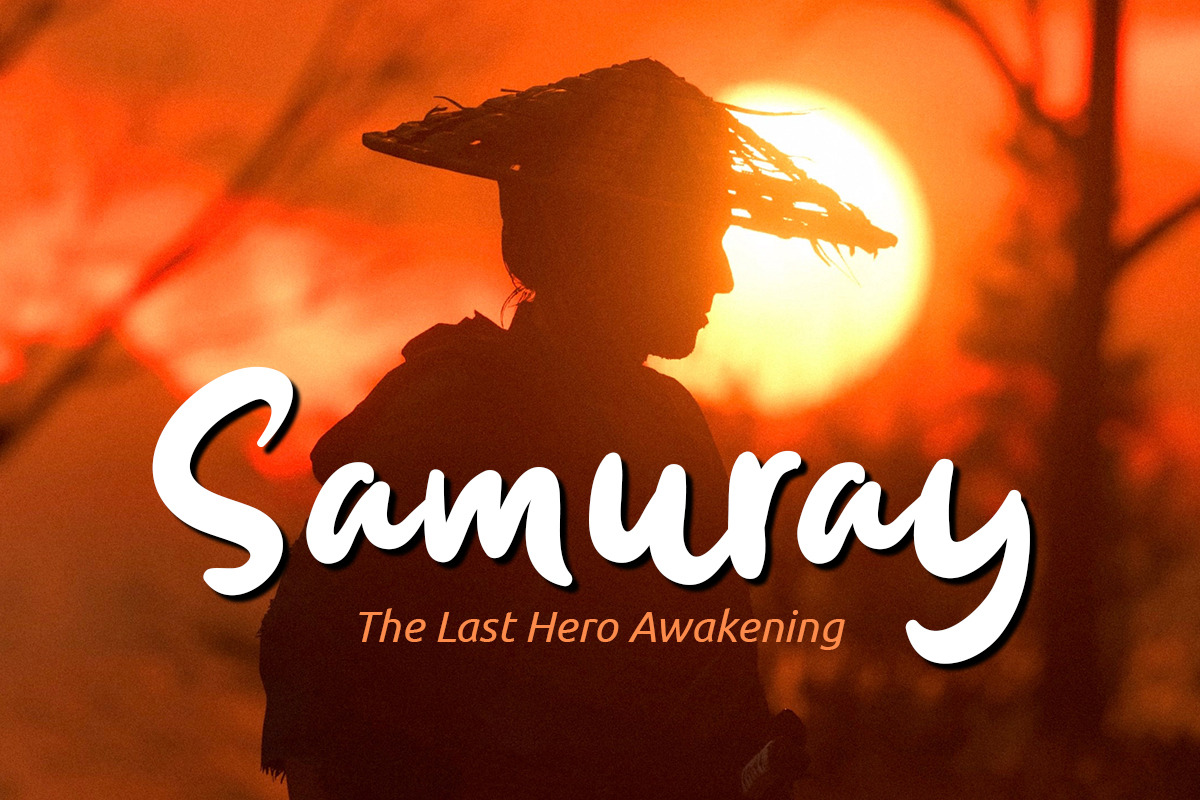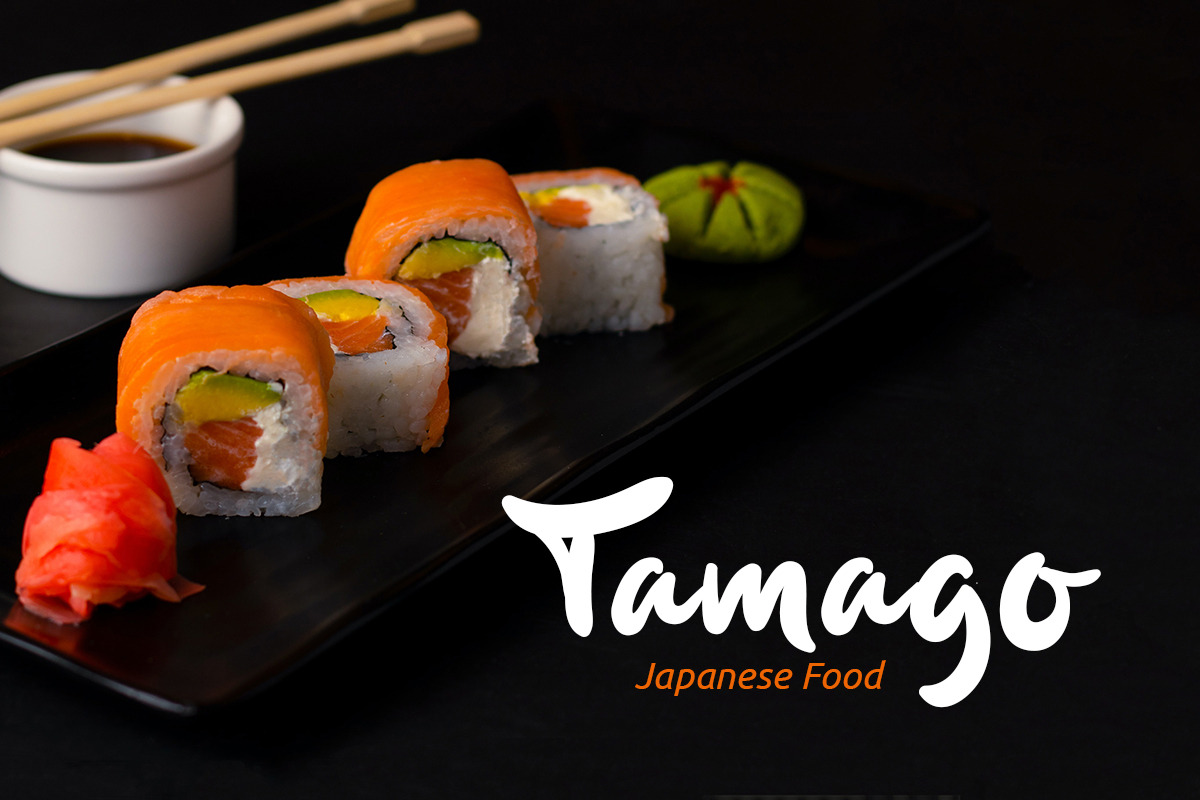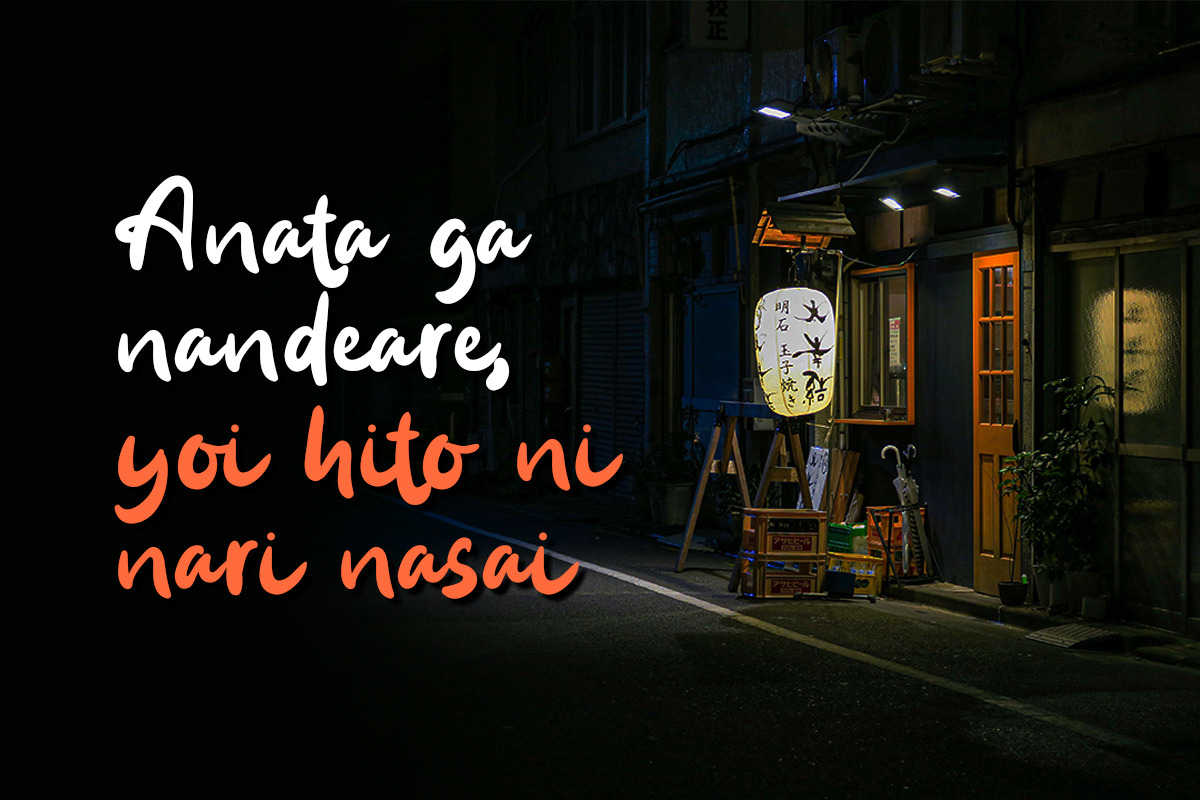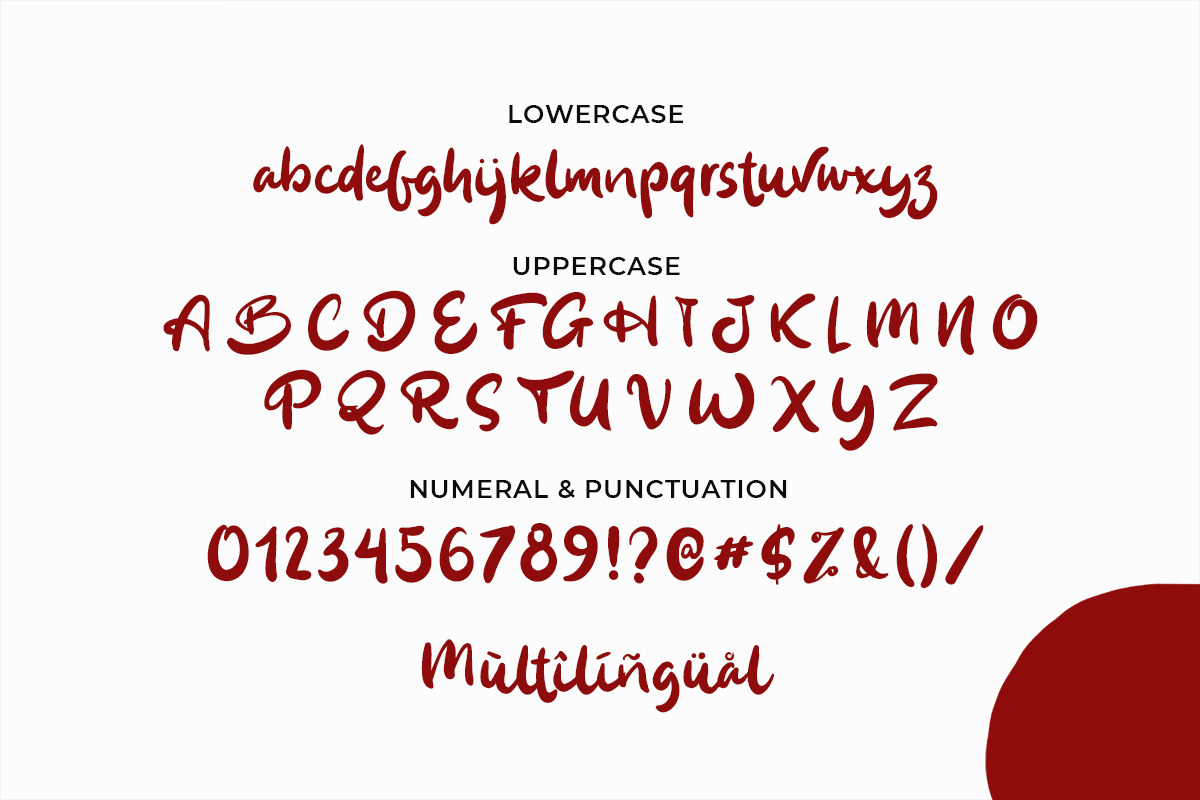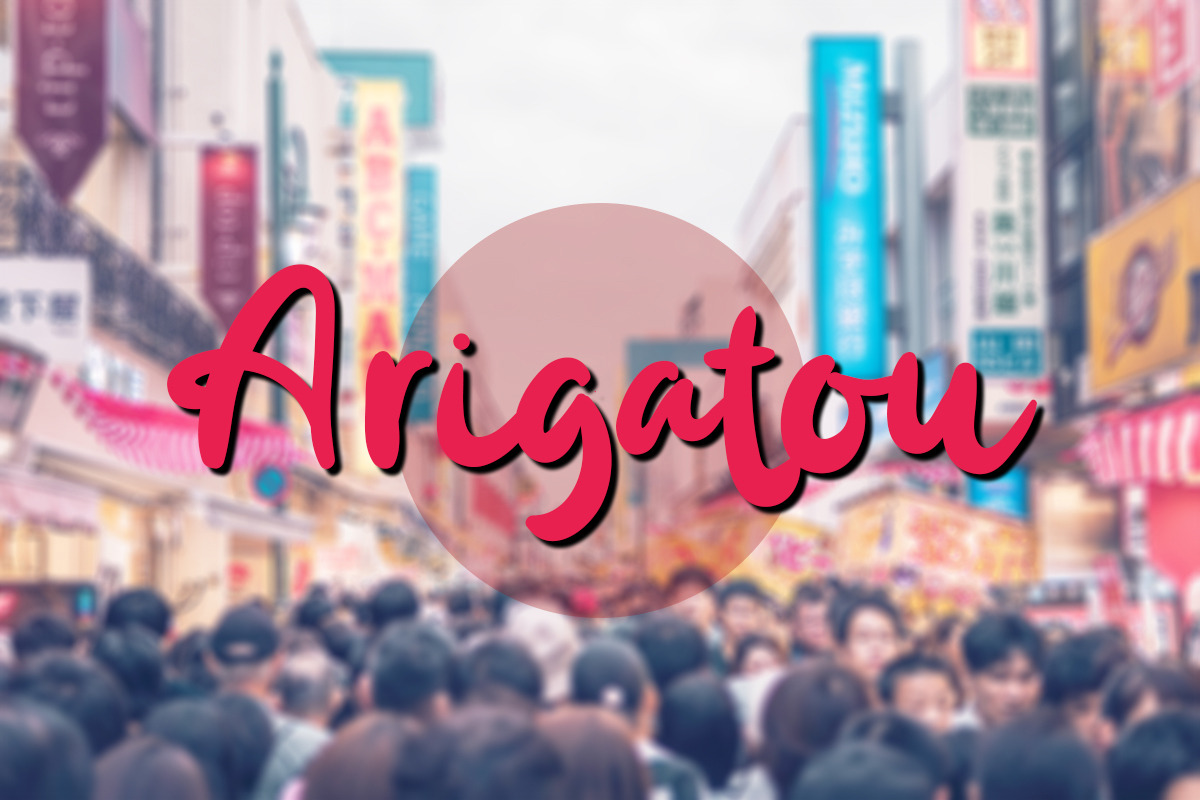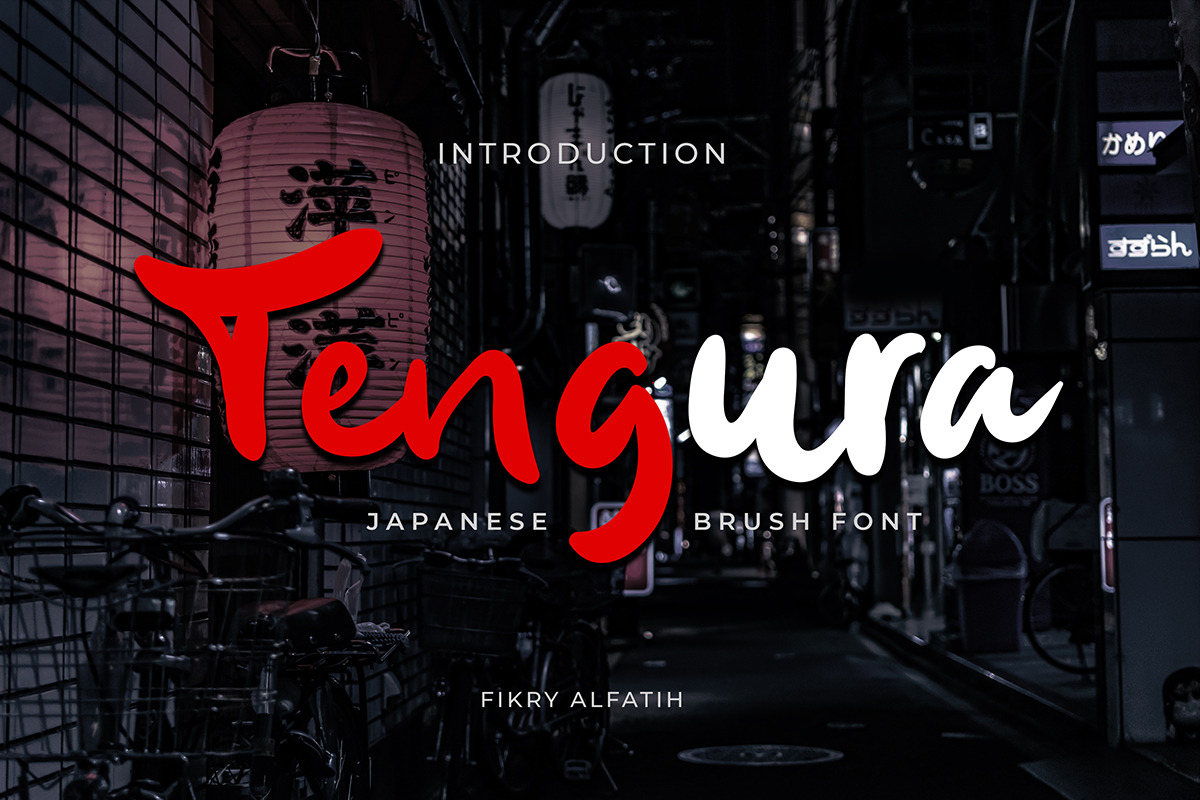
Tengura - Japanese Font
Tengura is an inspired natural Japanese brush font that created handmade with excellent quality. We combine ethnic and cultural elements in each of the glyphs. This Tengura font is suitable for those of you who like japanese culture, besides this font is also suitable for those of you who have a Japanese restaurant, Japanese clothing brand, Japanese Film, and business purposes related with Japanese culture.